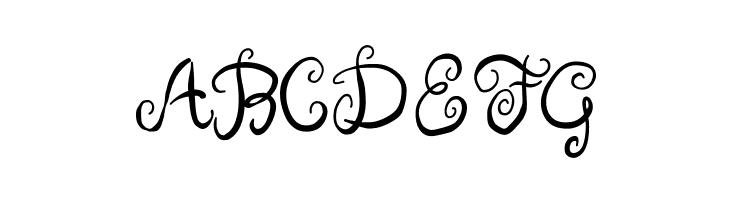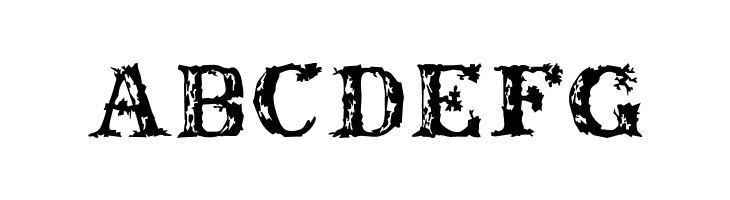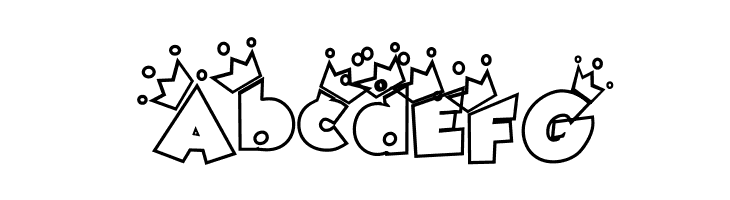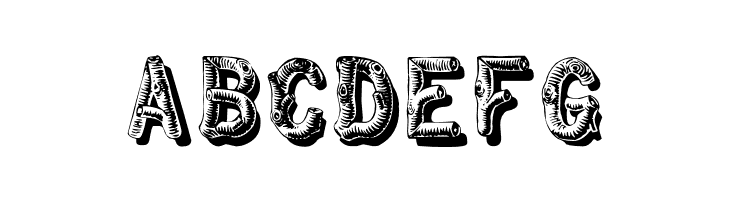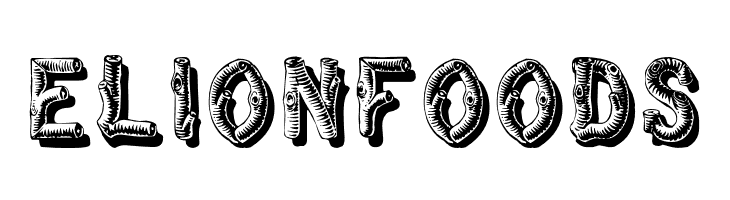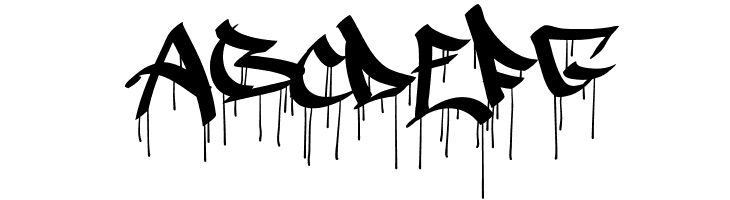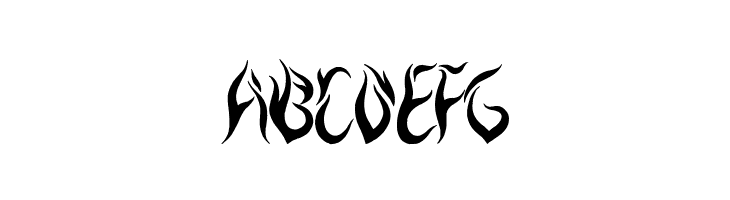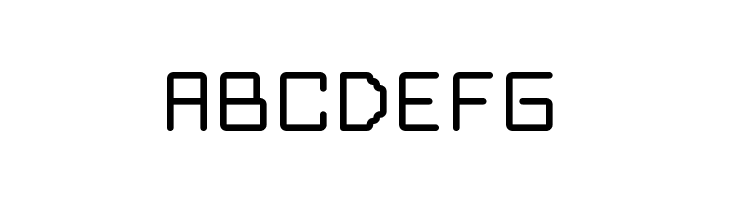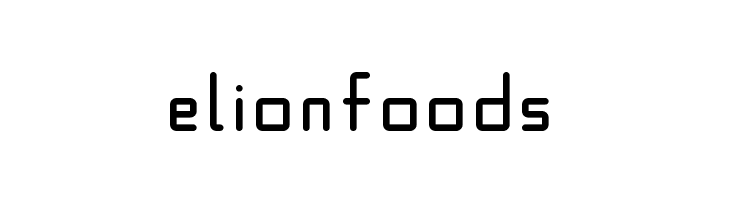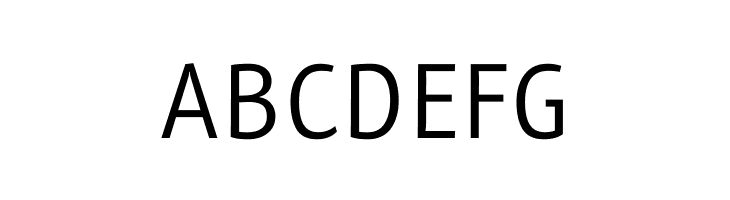
A bold, flame-inspired decorative font with dynamic curves and sharp edges.
A hand-drawn, artistic font with a bold, textured appearance.
A modern sans-serif font with a clean, professional appearance.
A bold, modern sans-serif font with excellent readability and strong presence.
A modern sans-serif font with geometric and balanced letterforms.
A modern serif typeface with high contrast and elegant serifs.
A bold serif typeface with high contrast and a modern yet classic style.
A bold, geometric font with a modern and slightly futuristic style.
A whimsical, curly script font with playful, hand-drawn elements.
A bold, playful font with rounded, geometric characters and unique cutouts.
A modern sans-serif font with a clean and slightly rounded design.
A playful, casual handwritten font with a lively and organic style.
) A bold, angular font with a dynamic and artistic style.
) A bold, angular font with a dynamic and geometric style.
A bold, modern font with geometric structure and uniform stroke width.
An elegant script font with flowing, cursive strokes and intricate flourishes.
Graffiti-inspired font with bold, dripping letters and an urban aesthetic.
A bold, graffiti-inspired font with a dripping, rebellious style.